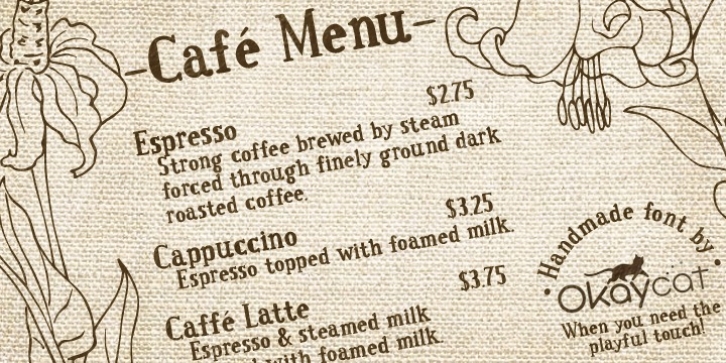
Joopica is cute & fun, bringing a friendly good nature to your communication. For the casual fresh look this font has lots of appeal.
Joopica features extended characters, containing West European diacritics & ligatures, making it suitable for international environments & publications.